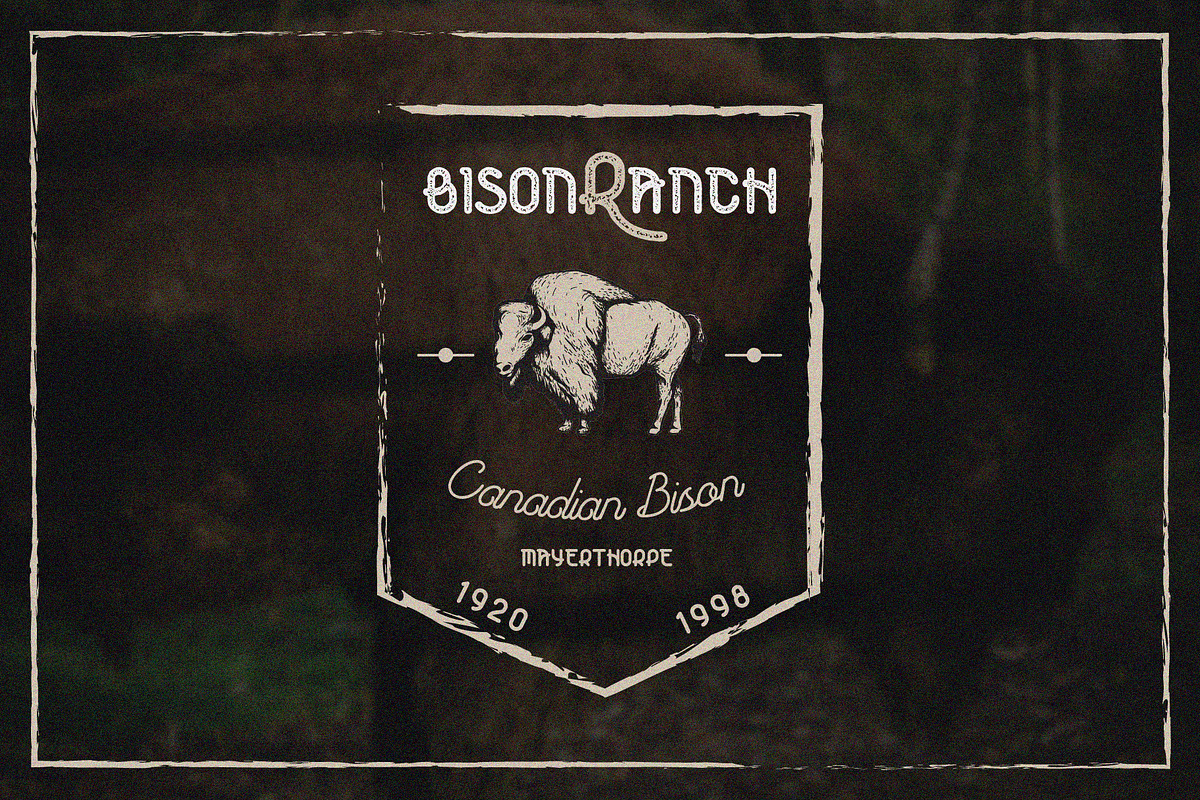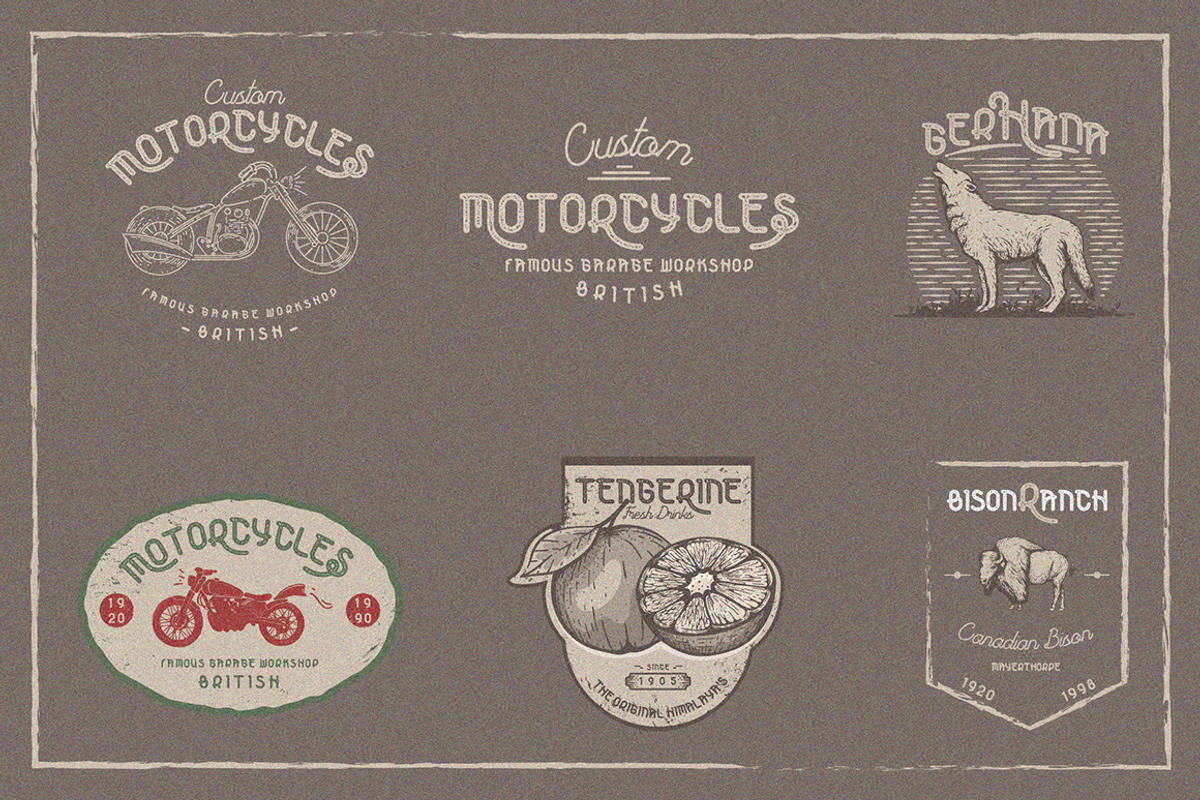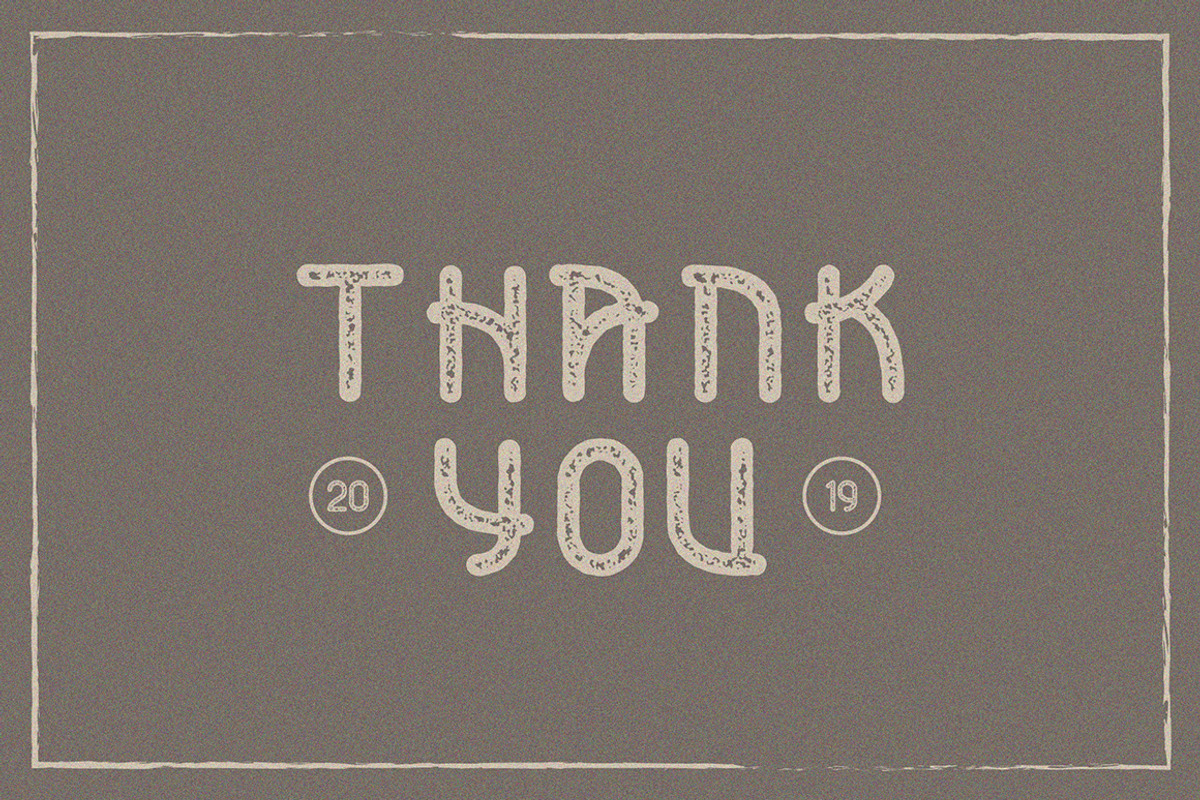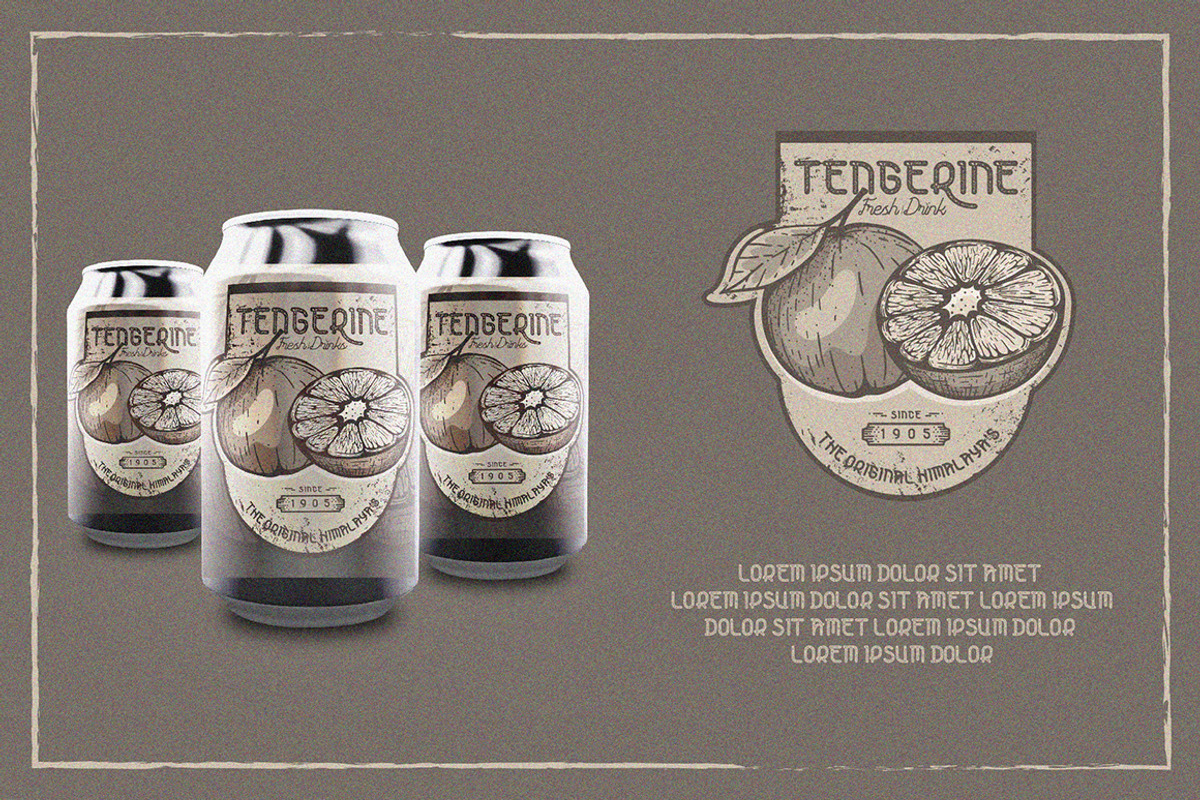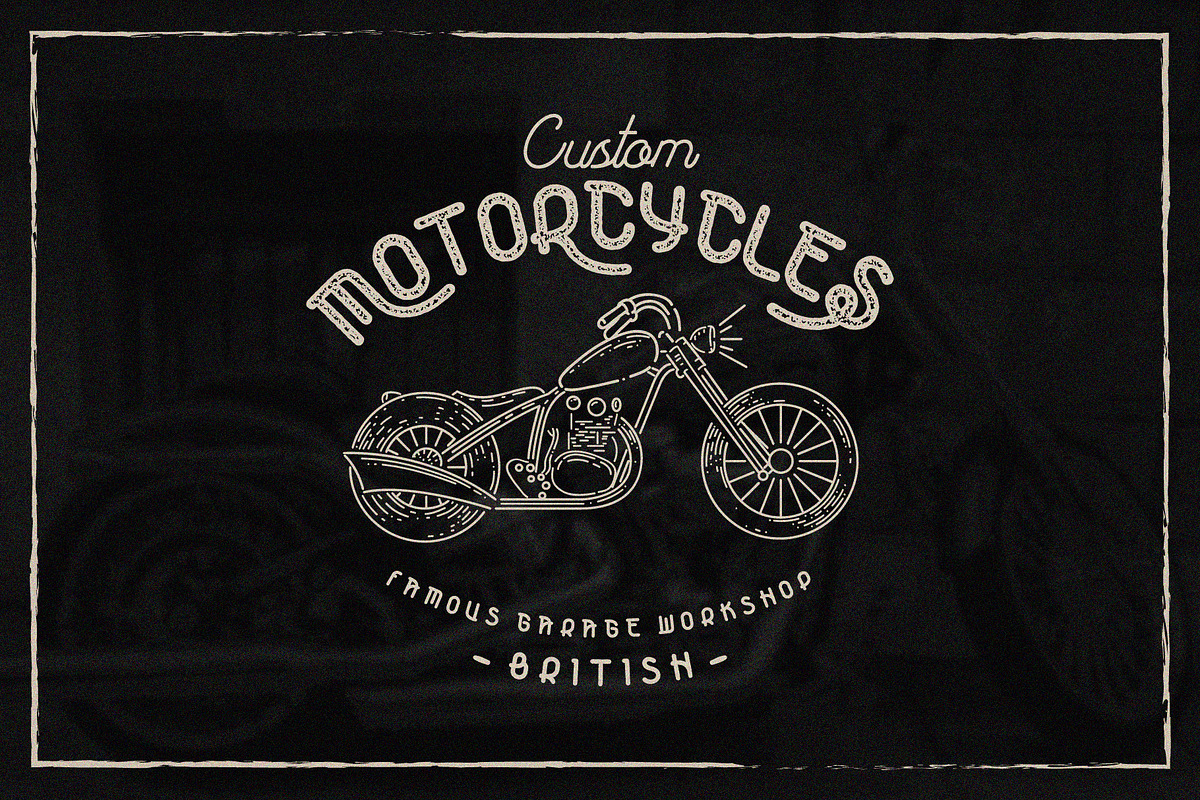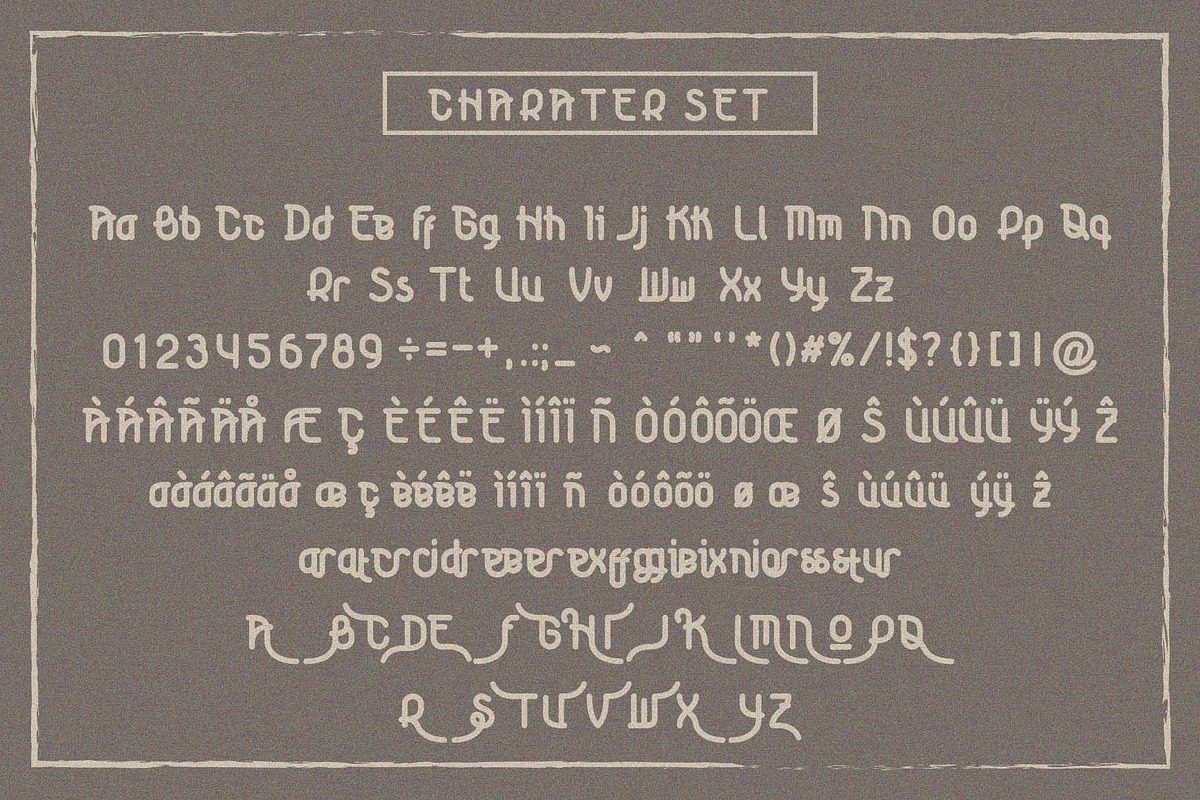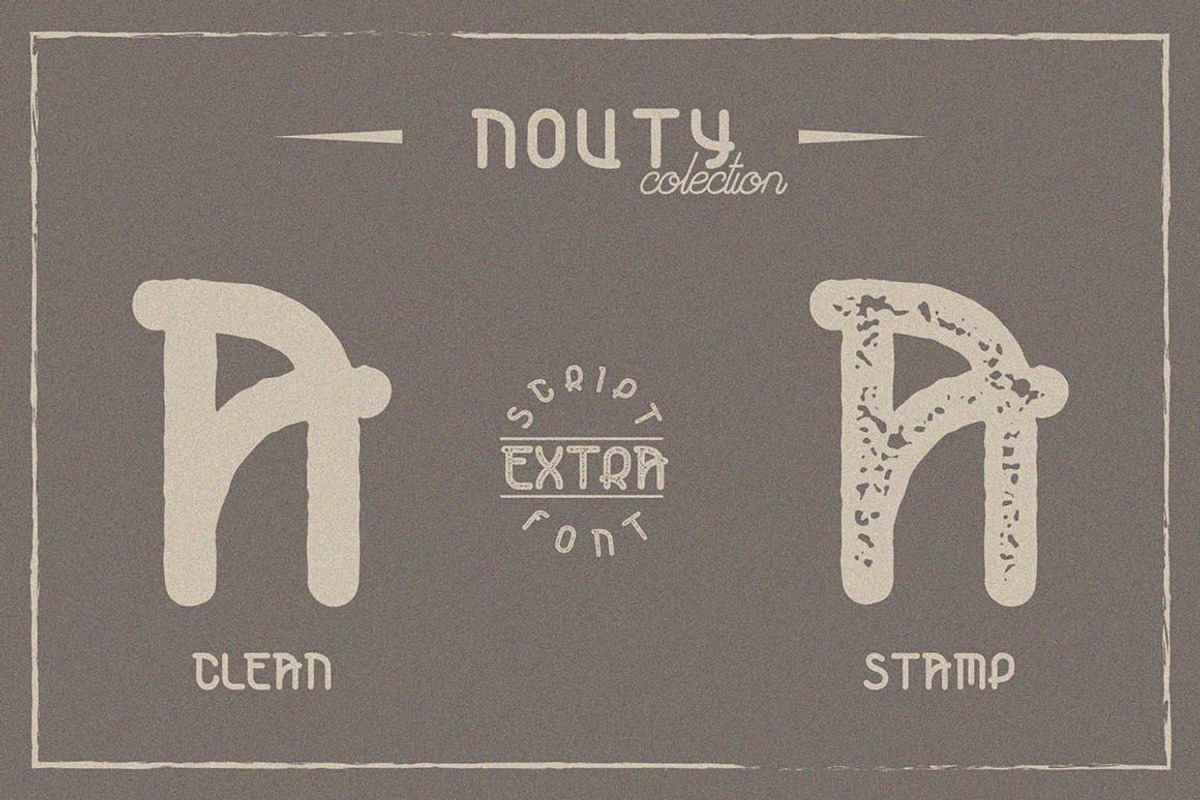
NOUTY VINTAGE FONT
Nouty is a regular vintage sans serif with duo styles. It can be used for various types of your projects one of which is the logo.
Nouty also comes with three types of fonts : Regular, Stamp and Script. This font will make your design look more alive and the retro impression will be more visible.
This font is available Standard Ligature, Stylistic Alternates and Multilingual.